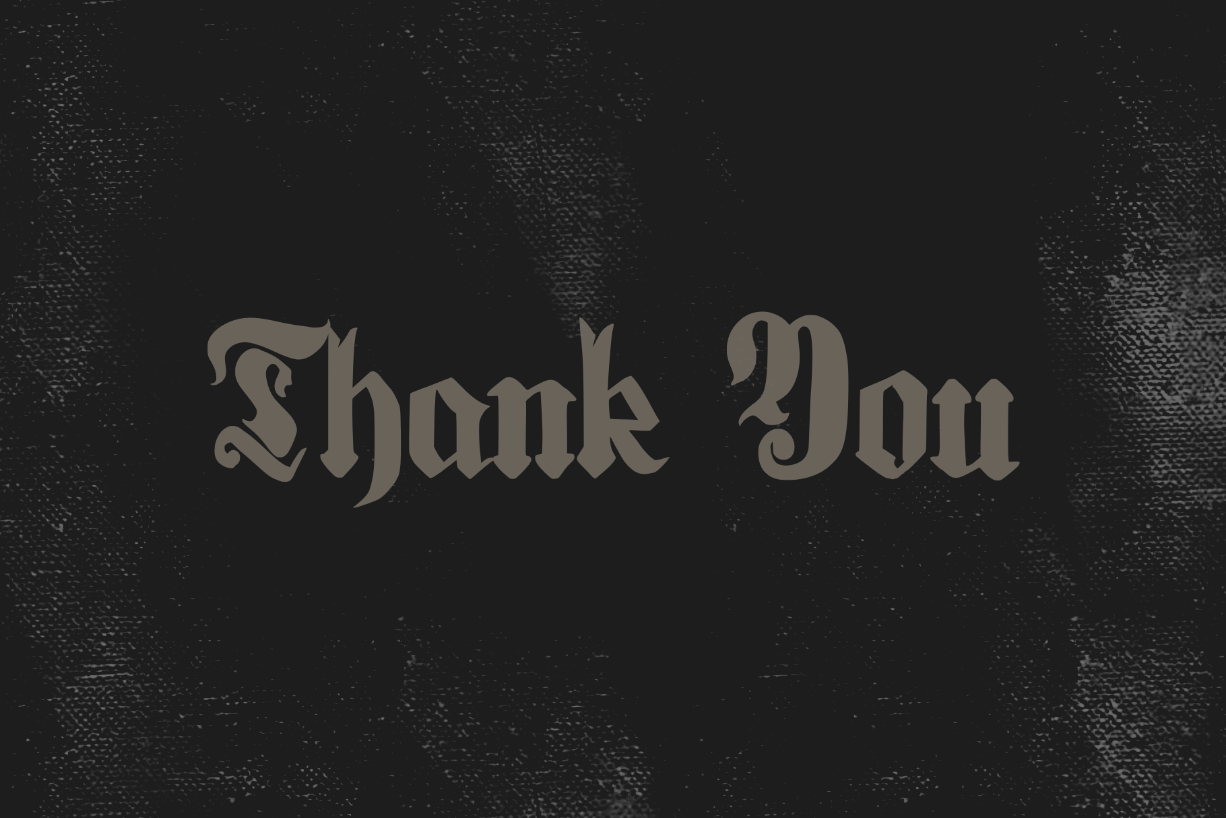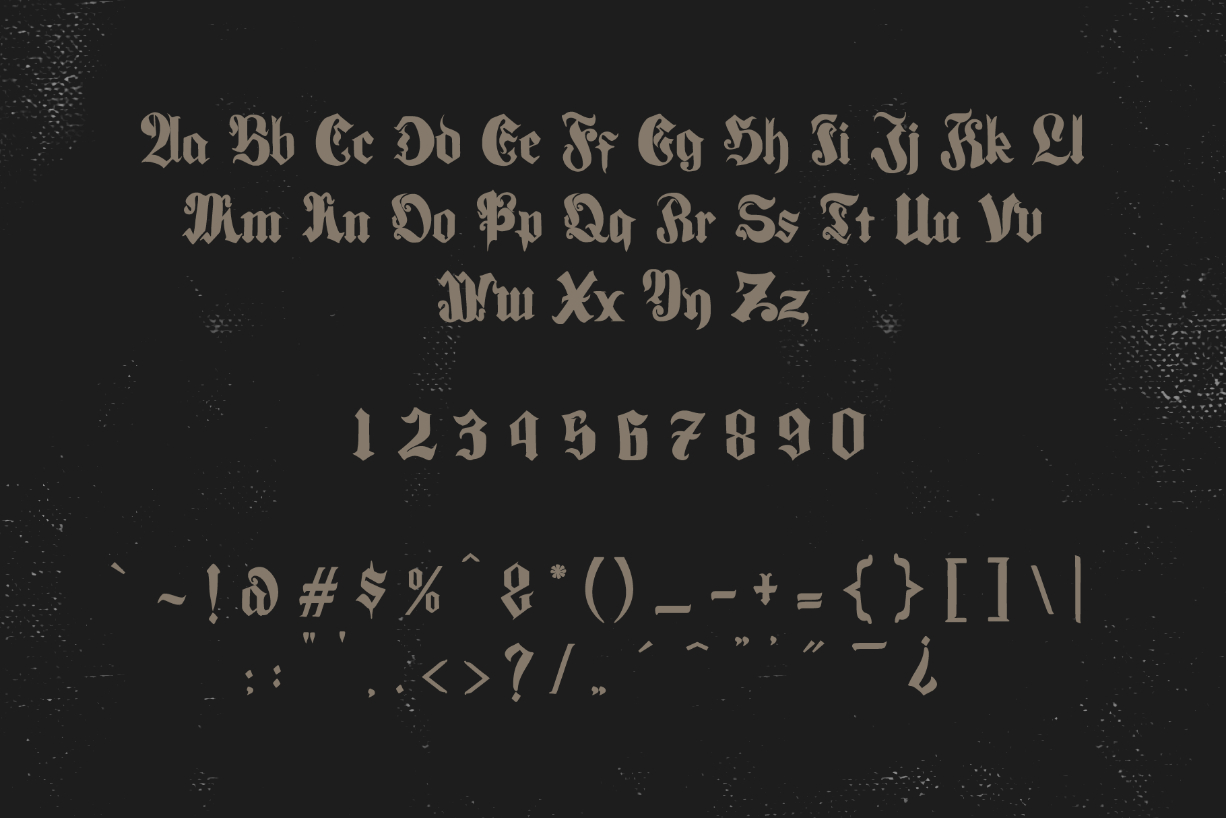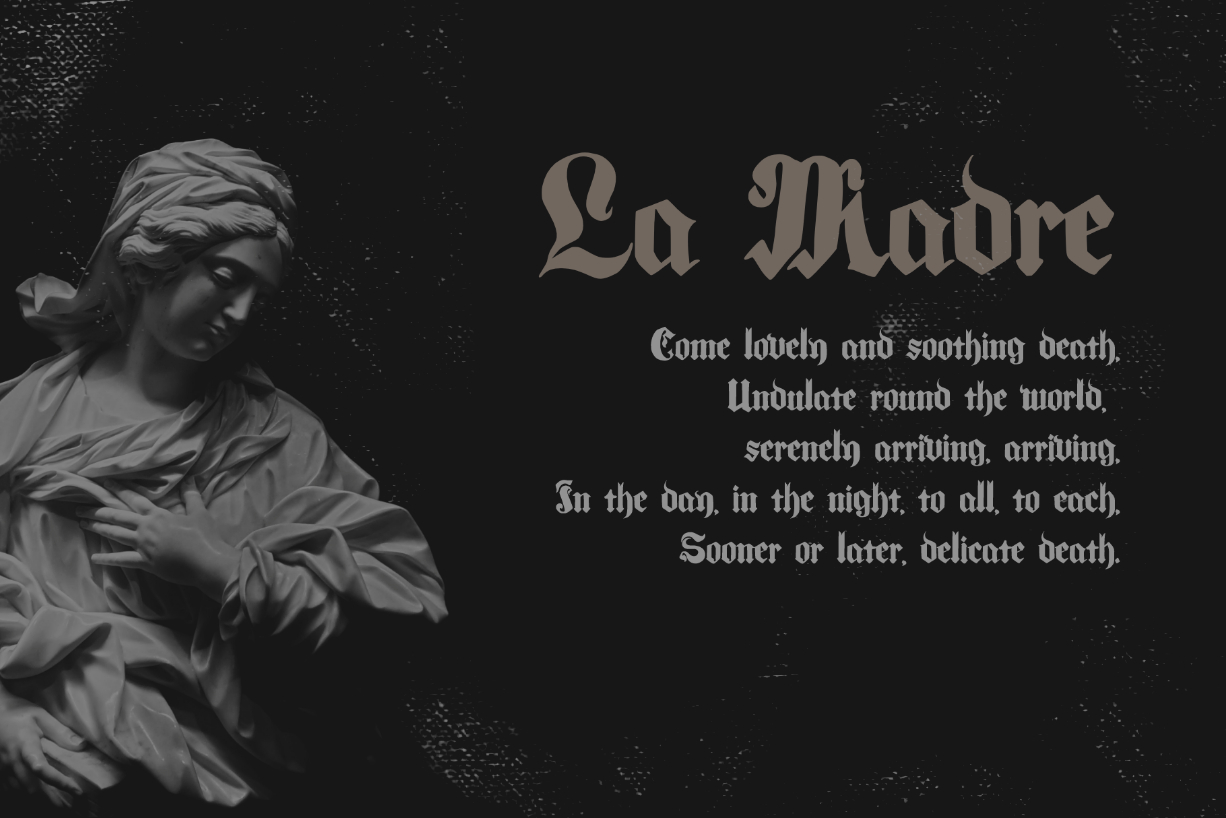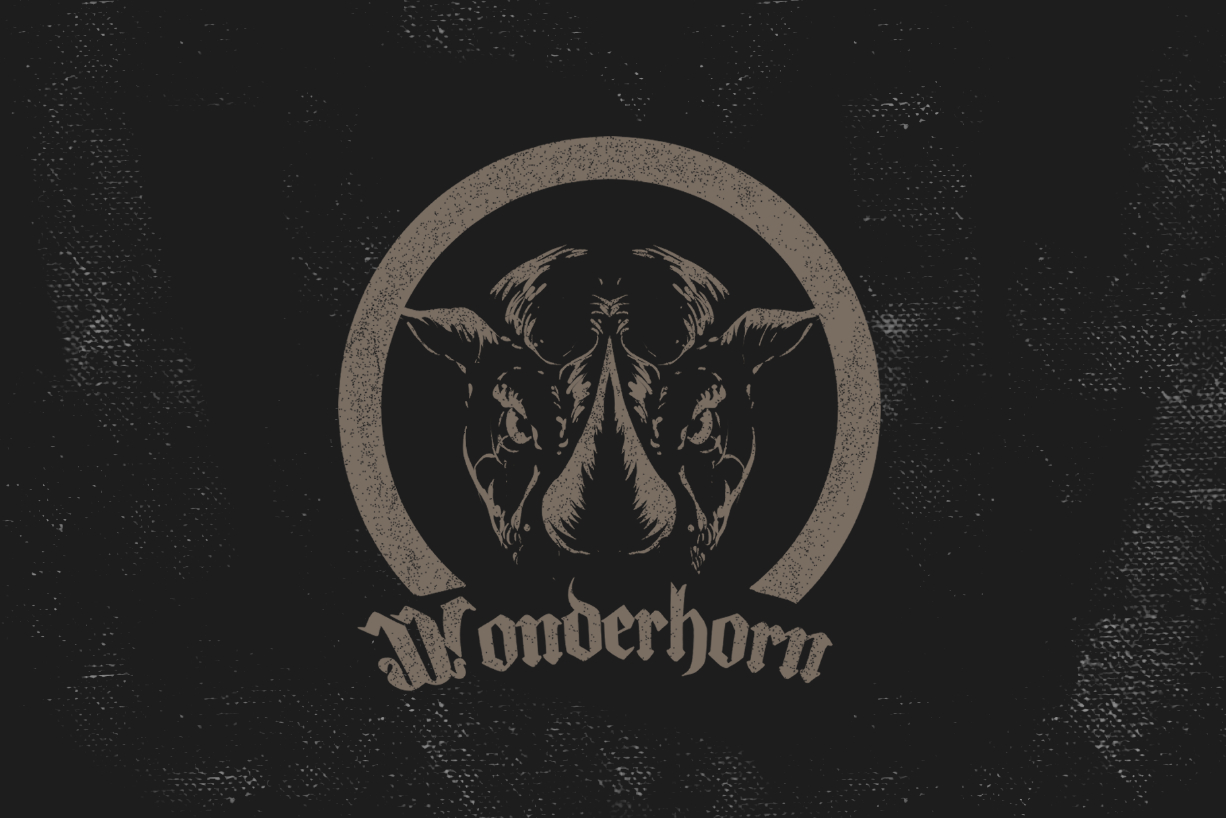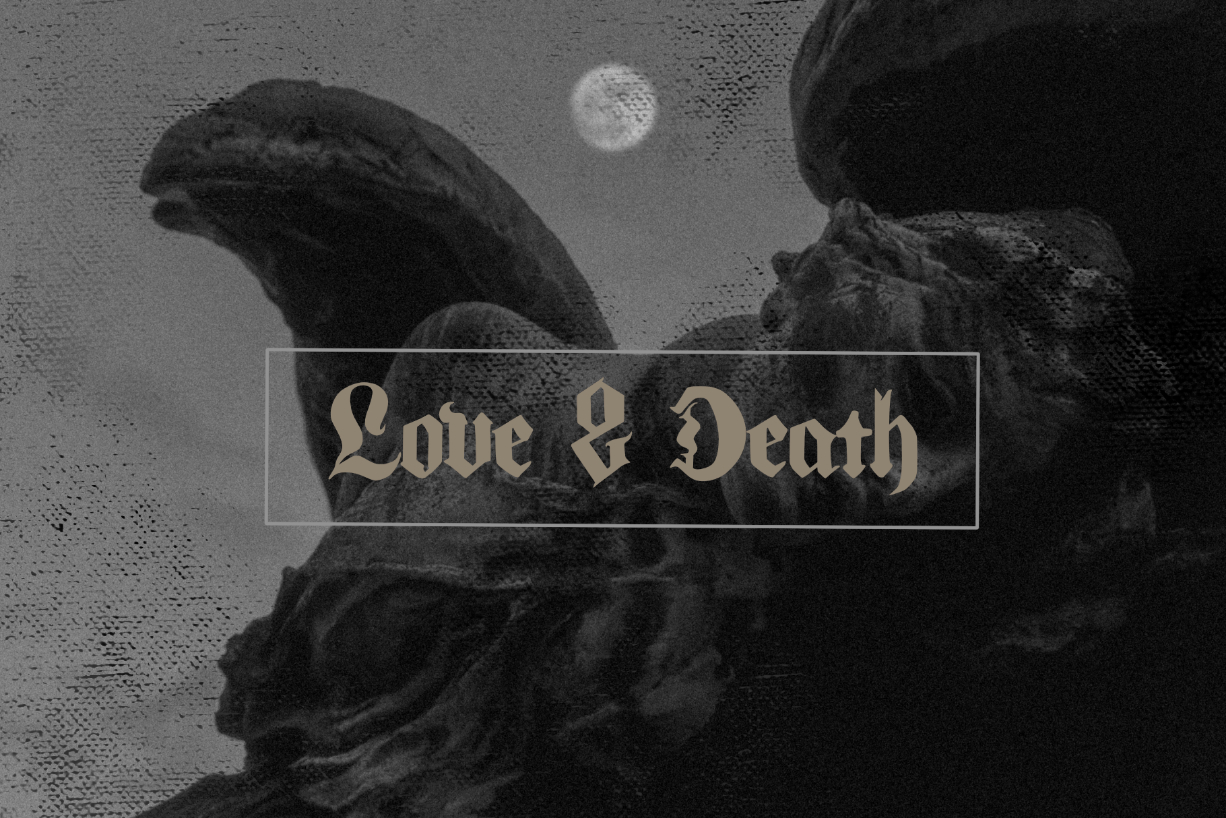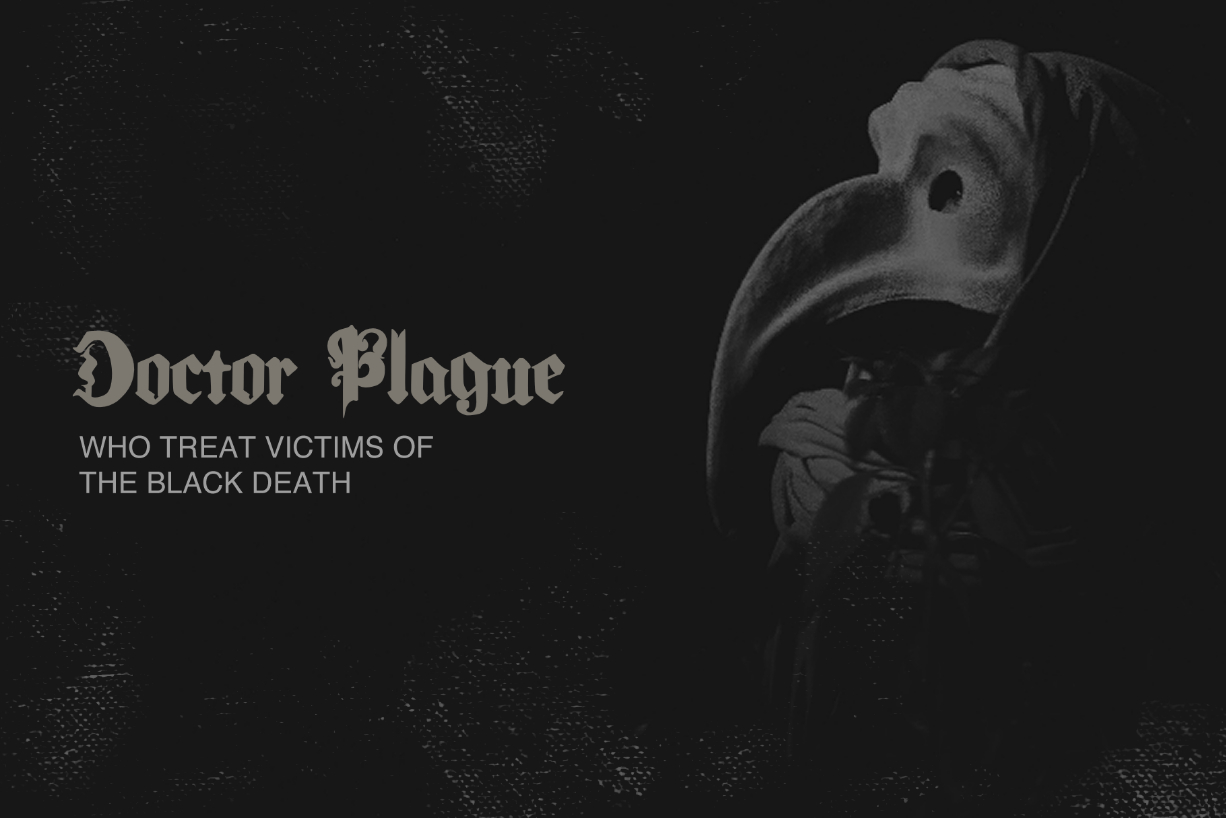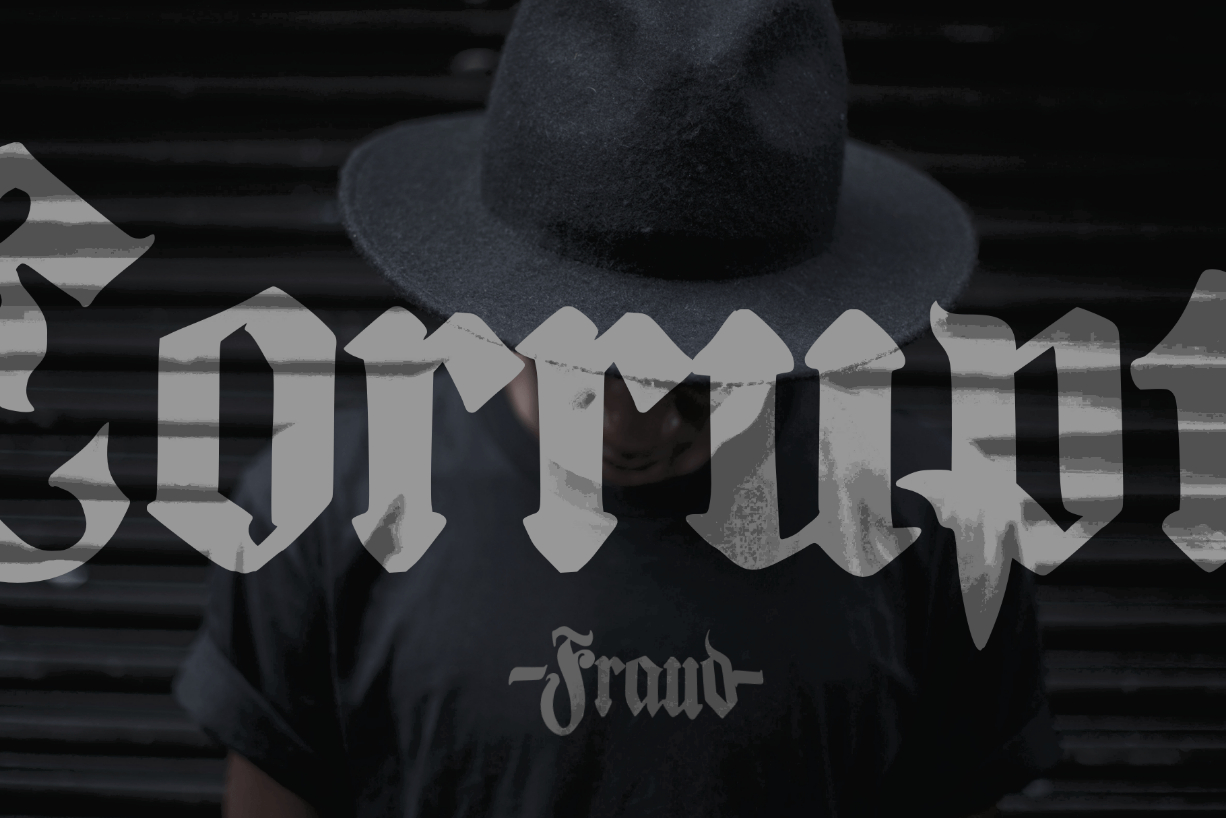
Luminados Fraktur Font
About Luminados Fraktur Font
This font was inspired by classical fraktur made in the middle of the 19th century, which featured strong contrast and artistic lines. The font is well-suited for classical headlines, advertising, or artistic purpose. But with your creative idea, you can use this font to make your project outstanding and elegant.